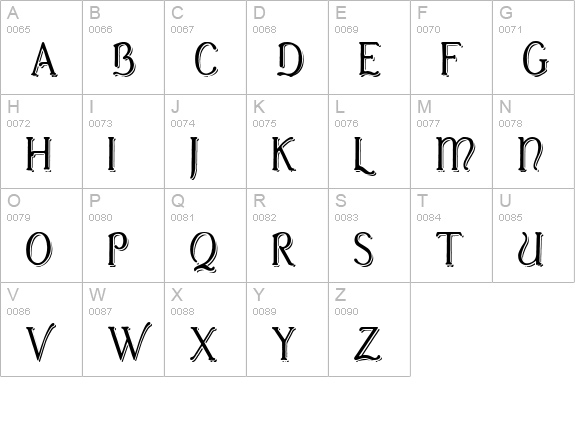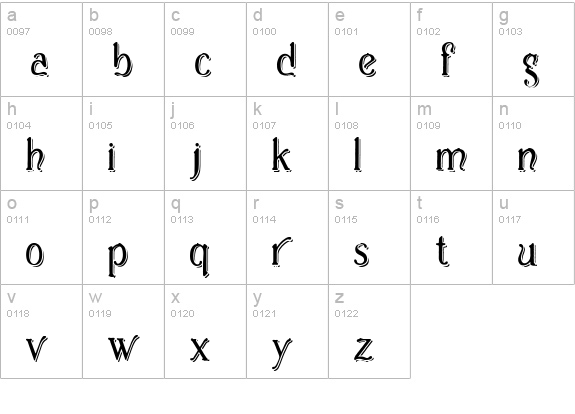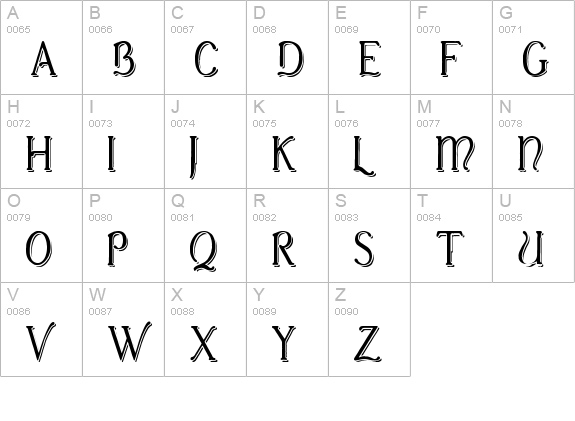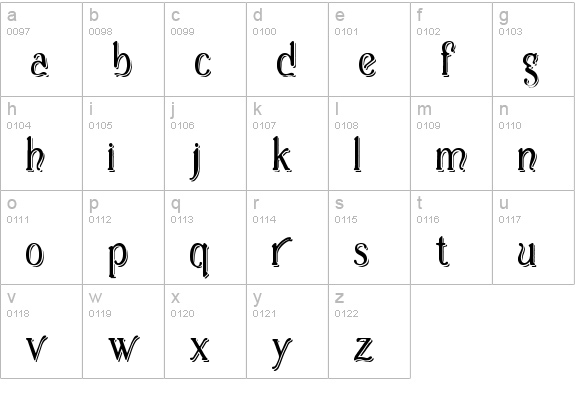
Casua_Shopsign Font Details
Casua_Shopsign font is a versatile and modern typeface that combines elements of casual handwritten style with a sleek and professional look. Its clean lines and easy readability make it perfect for a wide range of design projects, from branding and advertising to social media graphics and more. With a wide range of weights and styles, Casua_Shopsign offers plenty of flexibility for designers looking to add a unique touch to their work. Whether you're creating a logo for a trendy boutique or designing a poster for a local event, this font is sure to make a statement. Best of all, Casua_Shopsign is completely free to download at FontsMarket.com, making it accessible to designers of all levels. So why wait? Add this stylish and contemporary font to your collection today and start creating stunning designs that stand out from the crowd.